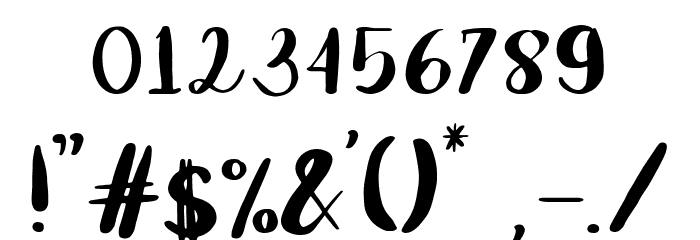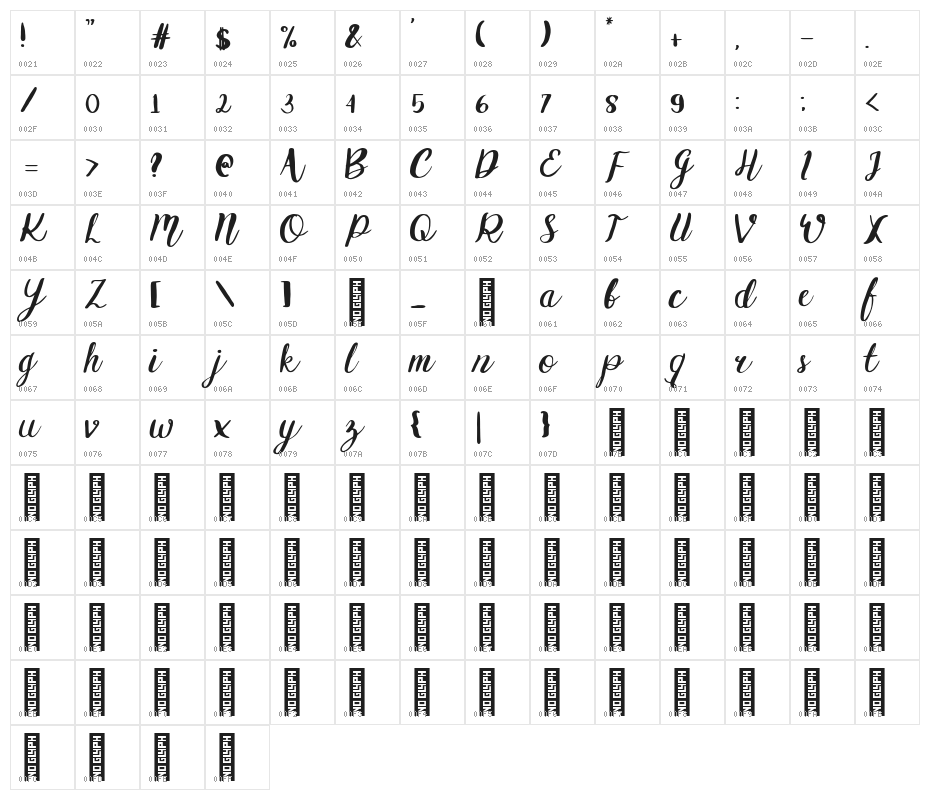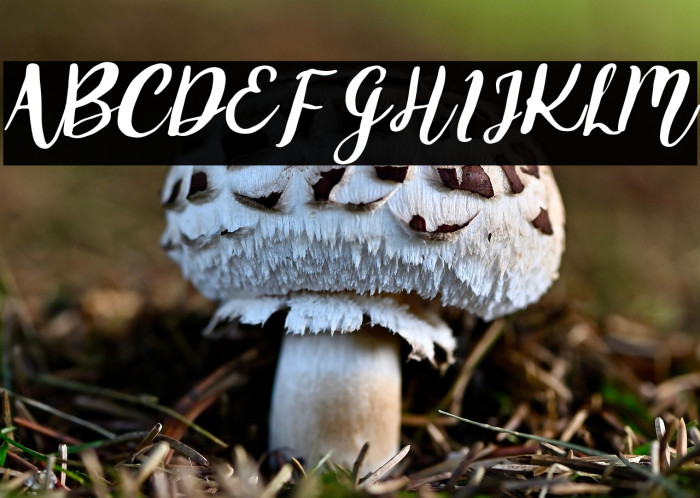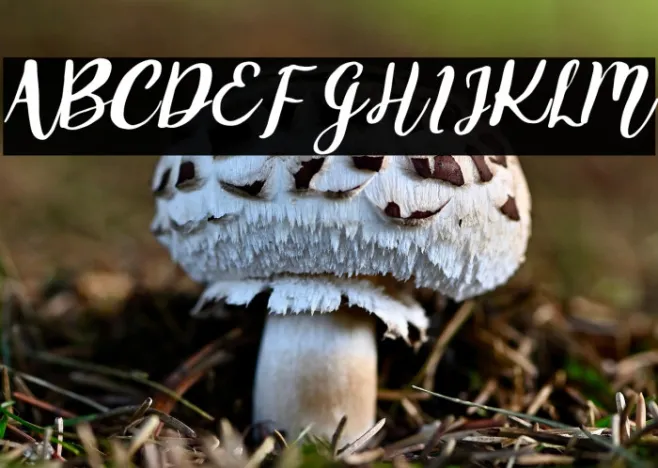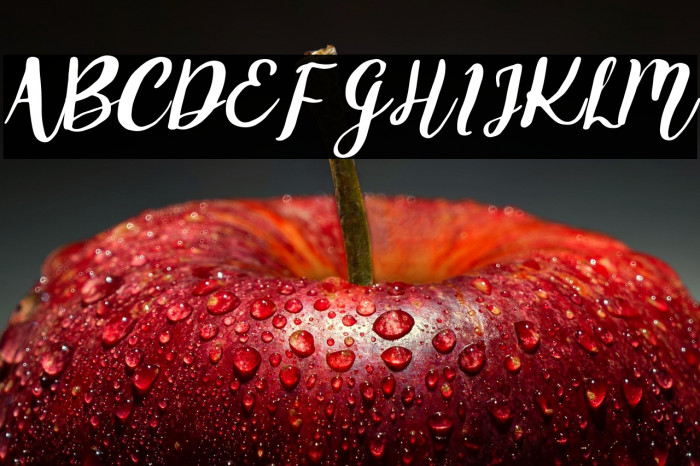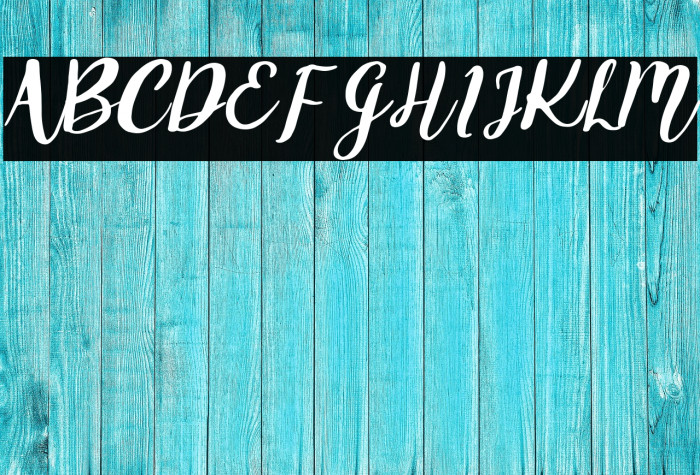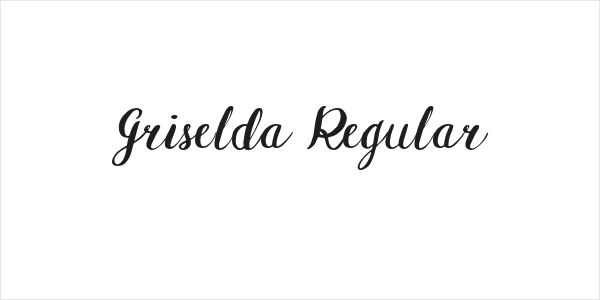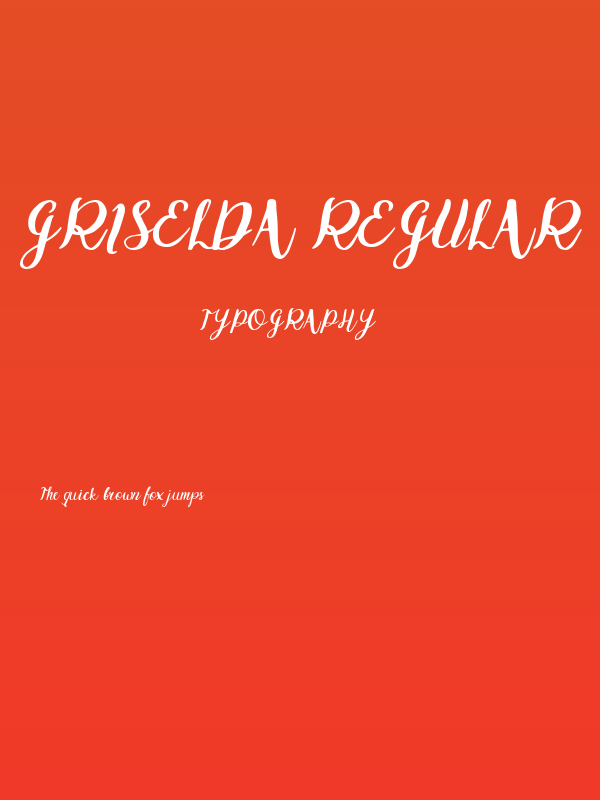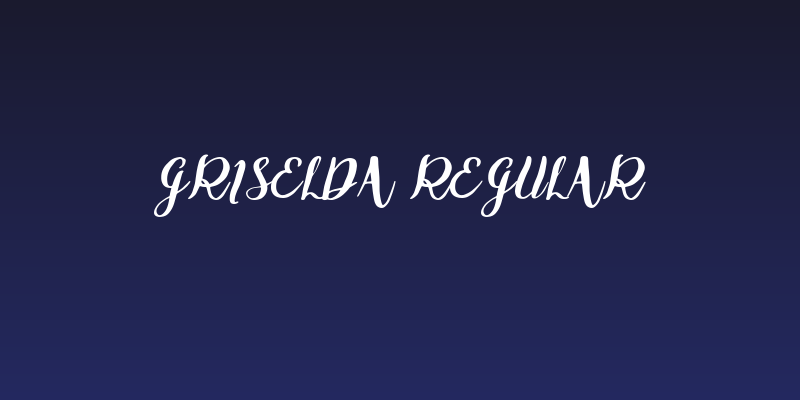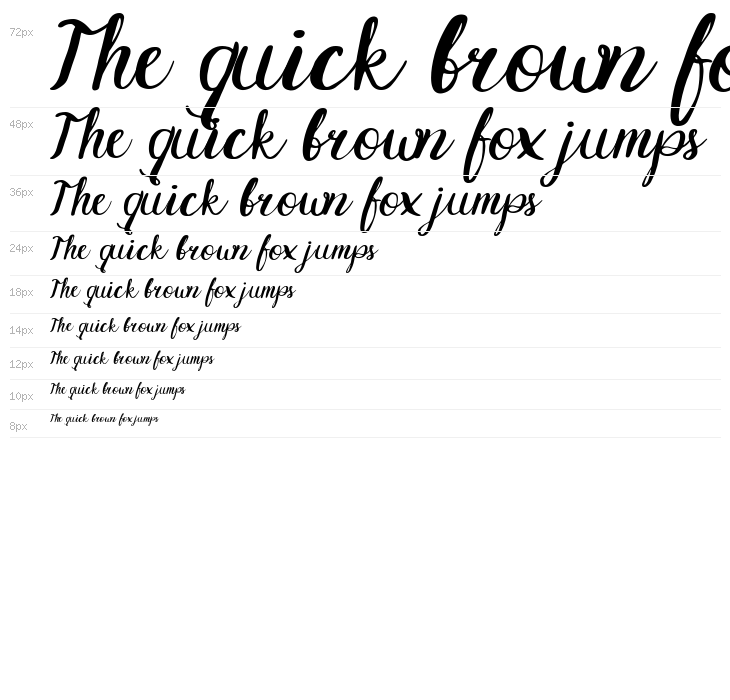
Griselda Regular Font
Griselda Regular Description
This font features a flowing, cursive style with elegant, sweeping strokes that give it a handwritten appearance. The letters are connected, creating a sense of continuity and fluidity. The uppercase characters are bold and prominent, while the lowercase letters maintain a consistent style with slightly more delicate lines. The numerals and special characters are designed to match the overall aesthetic, ensuring a cohesive look. The font's playful yet sophisticated style makes it suitable for a variety of creative projects.